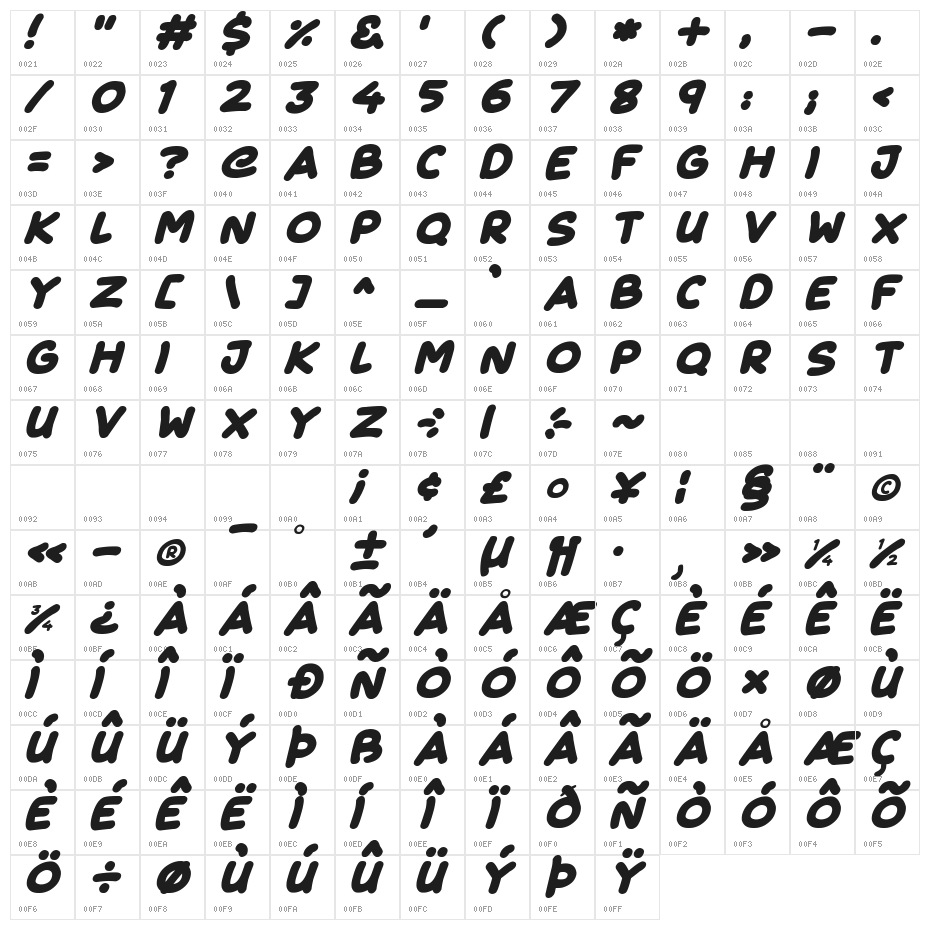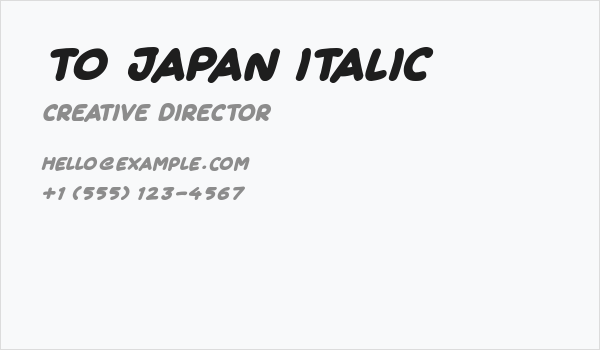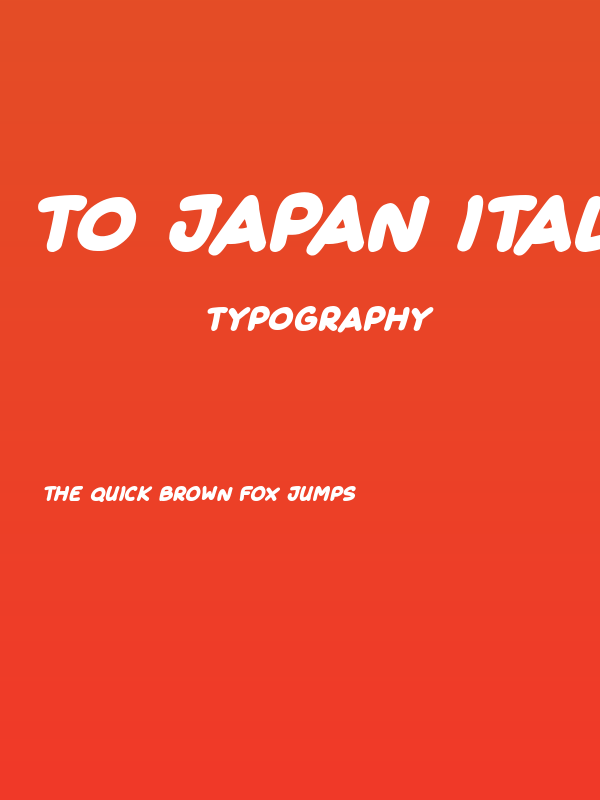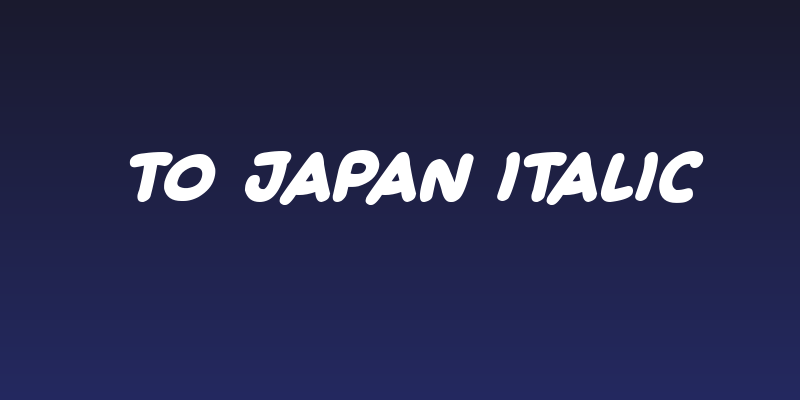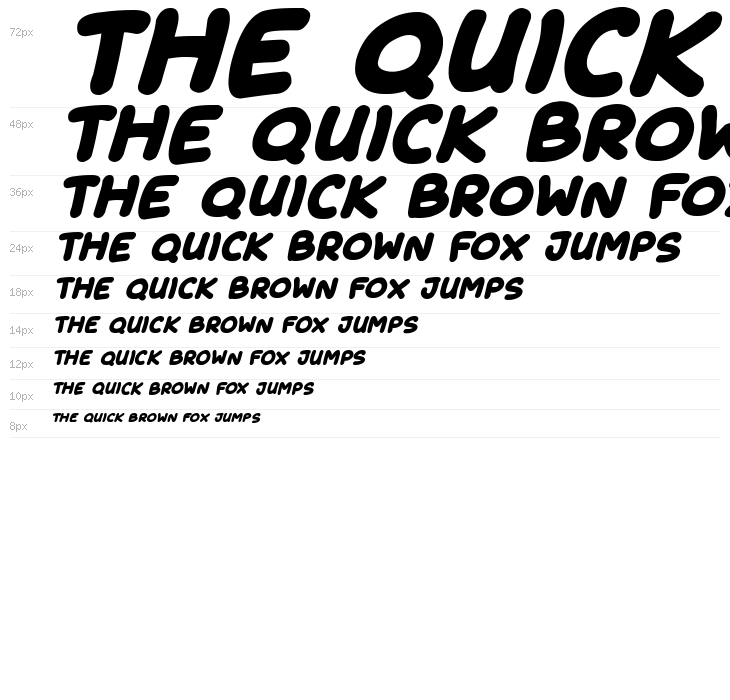
To Japan Italic Font
To Japan Italic Description
This font features a bold, italicized style with a playful and energetic appearance. The letters are rounded and slightly slanted, giving a sense of motion and fluidity. The uppercase and lowercase characters maintain a consistent weight, contributing to a cohesive look. The numbers and special characters are designed to match the overall style, ensuring uniformity across all glyphs. The font's thick strokes and smooth curves make it highly legible, while its dynamic form adds a touch of personality. This typeface is well-suited for projects that require a lively and informal tone.
| Overall Style | Playful, Energetic |
| Proposed Projects | Ideal for branding, posters, children's books, and playful advertising. |